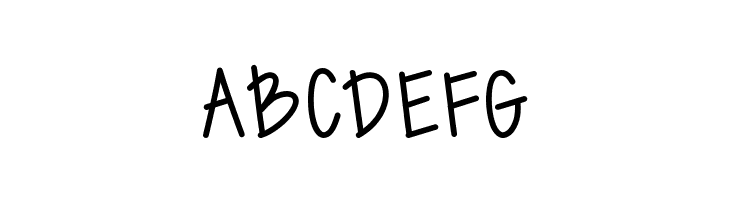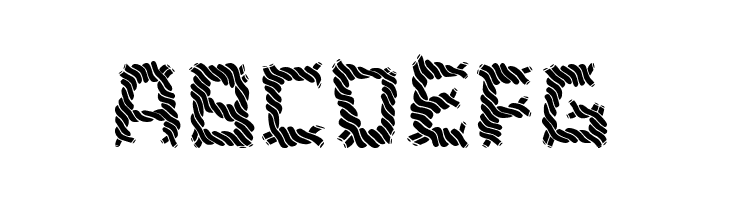
• !Futurelic
( Fonts by www.exclamachine.com )
A futuristic, distressed font with a unique, fragmented style.
• !Futurelic Sans Souci
( Fonts by www.exclamachine.com )
A futuristic, distressed font with fragmented strokes and a bold, edgy appearance.
• .VnAristoteH Medium
• .VnParkH Medium
• [Viva La Fiesta]
( www.woodcutter.es )
A bold, festive font displayed on triangular pennants, ideal for celebrations.
• [Viva La Fiesta]
A bold serif font with a classic, festive banner style.
• & Disparition
( Fonts by Octotype | Thomas Boucherie )
A playful, bold, and hand-drawn font with a whimsical touch.
• &Championship 1
A classic, elegant script font with flowing, cursive letterforms.
• &Dumpling
An elegant cursive script font with ornate flourishes and graceful loops.
• &Matchmaker
A fluid, cursive script font with a natural handwriting style.
• 212 Rose Quartz PERSONALUSE
( Fonts by 212 fonts )
Casual handwritten sans-serif with tall, narrow characters.
• 2Peas Blocks - Winter
( Fonts by www.twopeasinabucket.com )
A playful, blocky font with each character enclosed in a square.
• 3d fatsche
( cody - Codin Repsch )
A bold, 3D geometric font with a futuristic and dynamic style.
• 99%HandWritting
A playful handwritten font with fluid, irregular letterforms and a casual aesthetic.
• A Font with Serifs. Disordered
( Fonts by Audrius Skersys - www.extate.lt )
A bold, serif font with a distressed and disordered appearance.
• A Little Pot
A playful, hand-drawn font with a whimsical and friendly style.
• a ripping yarn too
( Fonts by Mike Wolf )
A bold, textured font with a rope-like pattern, ideal for striking visual designs.
• A Smile Can Change The World